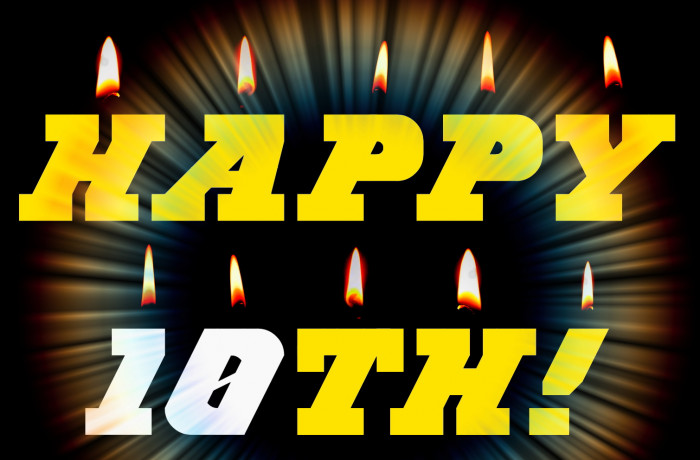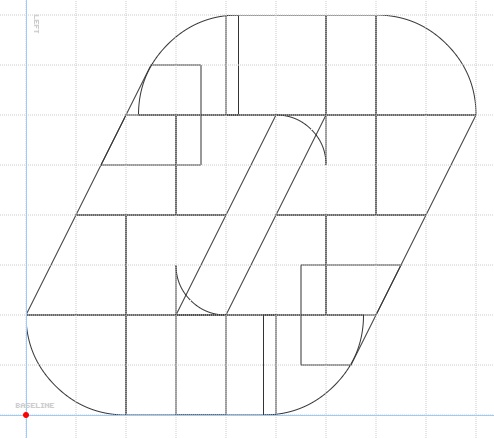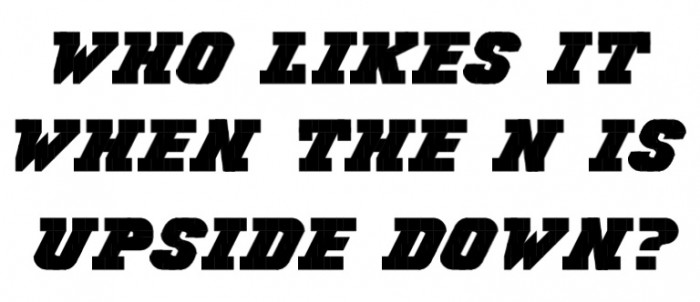
• Happy 10th anniversary to FS and all the fontstructors! Thanks a million to Meek and the sponsors. This is a wonderful trip and the future is infront of us, compañeros!
BTW, "Sorpasso" means "overtaking" in italian.
I'm kerning...
Elmo, have you tried this on the obtuse angles yet? I tries this and I think the rounded obtuse angles look better...
@Se7enty-Se7en: Thanks a lot! Your solution claims a new shade of view for the font from this point. I'm gonna try it for some glyphs in the lower case, we will see the final result, I hope. Thanks again.
Question:
The Upside-Down N
That N is great. It was obviously in a hurry to try meeting up with Meek :D just like all the other glyphs. Strange: I have rarely seen an italic that so clearly indicated speeding forward ....